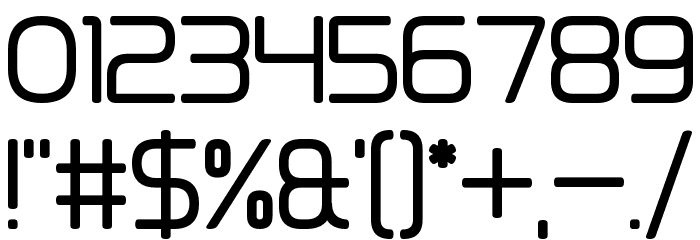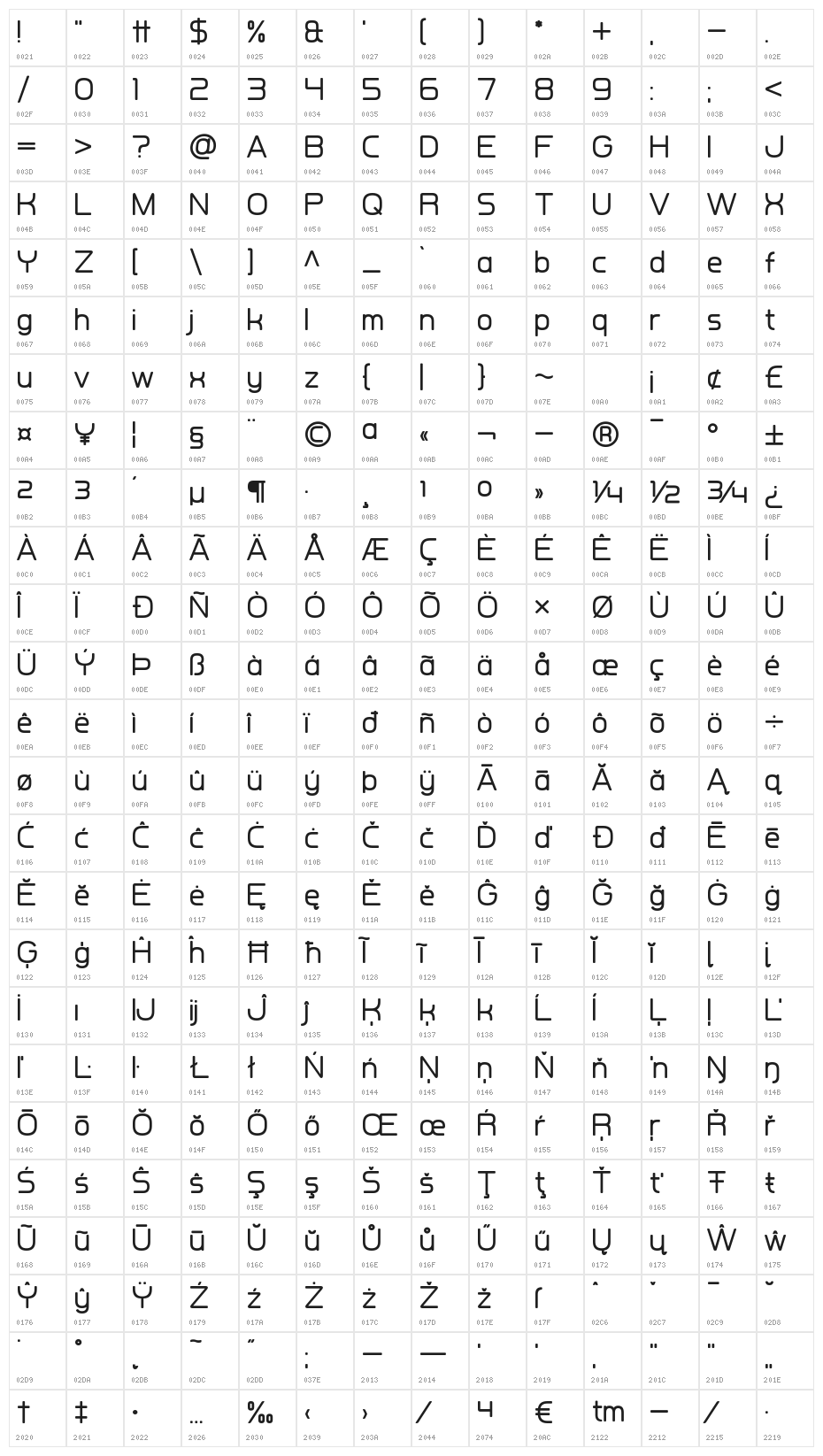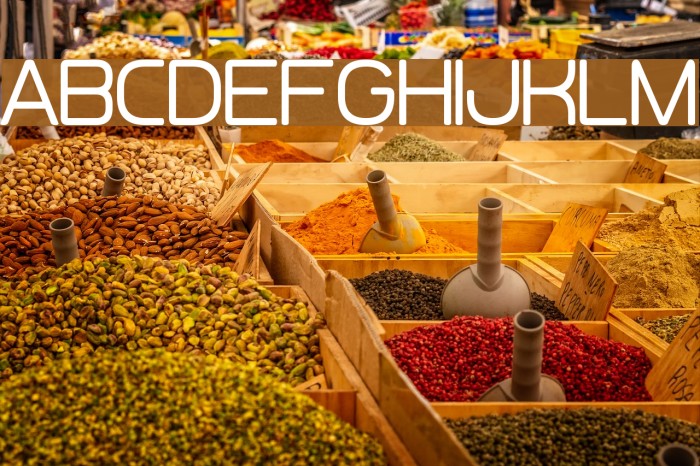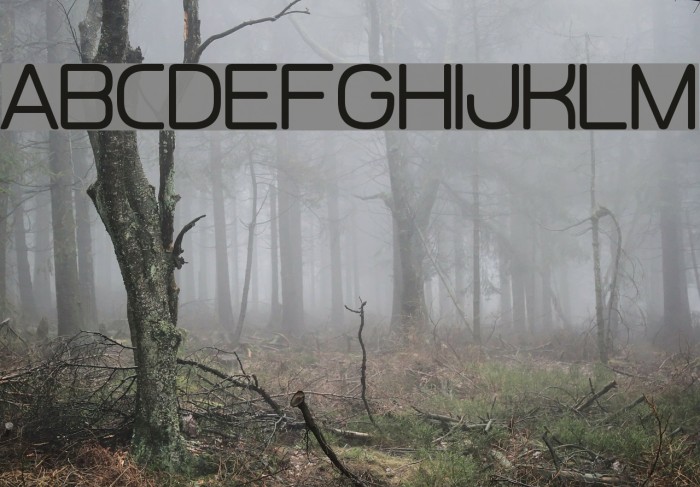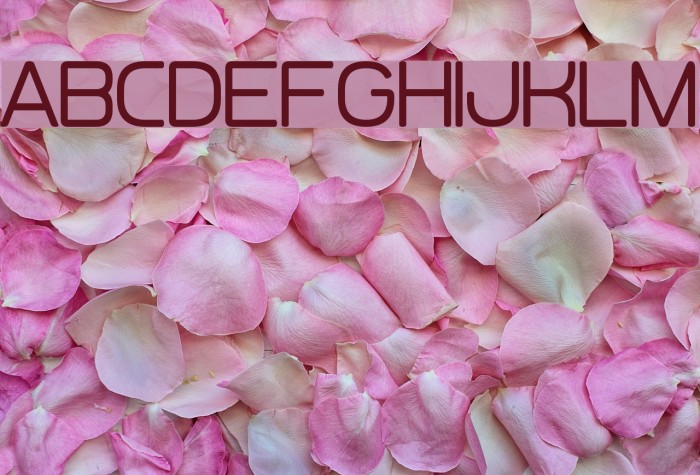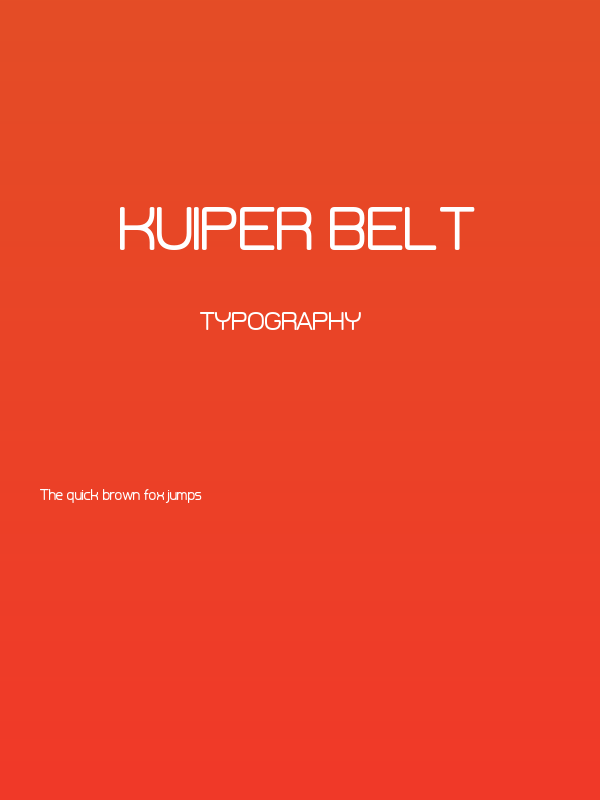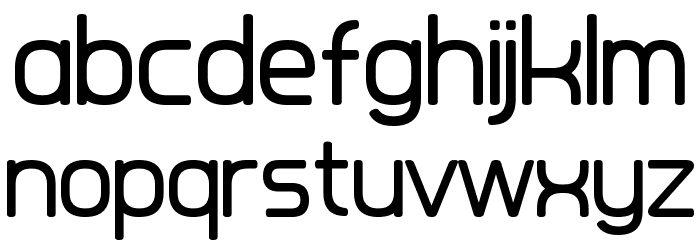
Kuiper Belt Font
Kuiper Belt Description
This font exhibits a modern and sleek design with a geometric structure. The characters are rounded and uniform, providing a clean and futuristic appearance. The uppercase letters maintain a consistent height, while the lowercase letters have a slightly more open and airy feel. The numbers are well-proportioned, matching the style of the alphabetic characters. Special characters are included, maintaining the same rounded and minimalist aesthetic. This font is highly legible, making it suitable for a variety of digital and print applications. Its simplicity and elegance make it versatile for both professional and creative projects.
| Proposed Projects | Ideal for tech branding, digital interfaces, modern advertising, and minimalist design projects. |